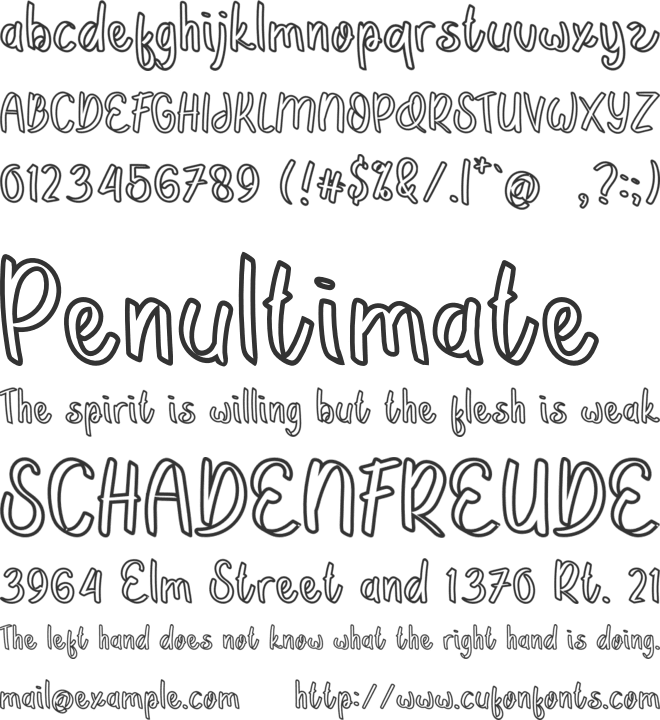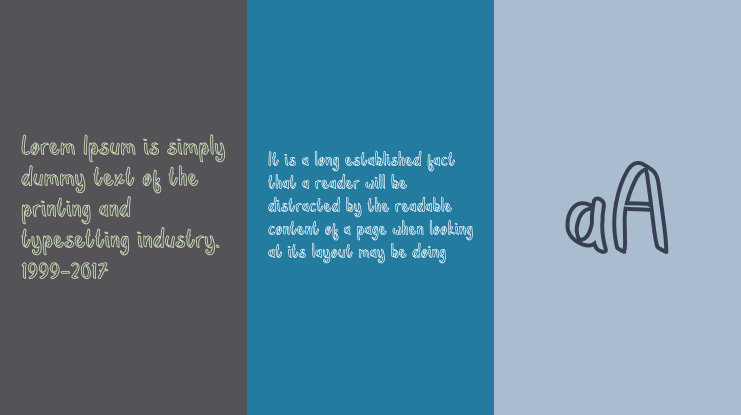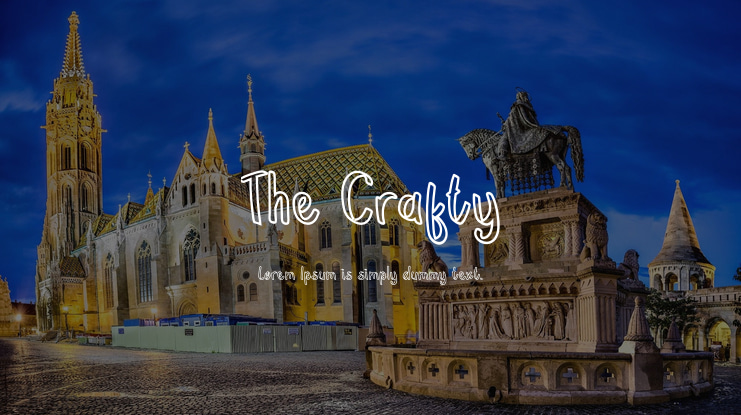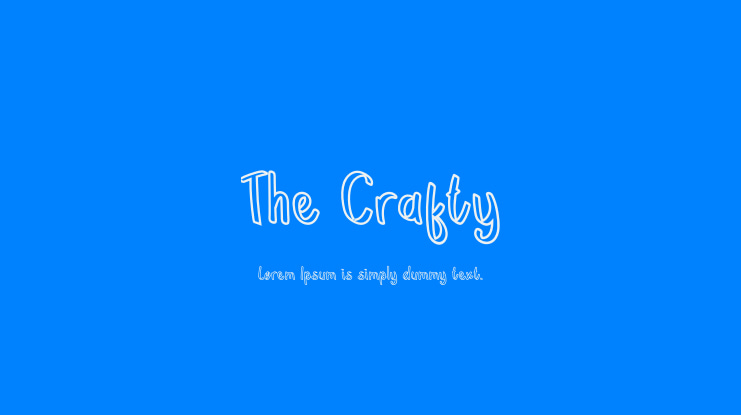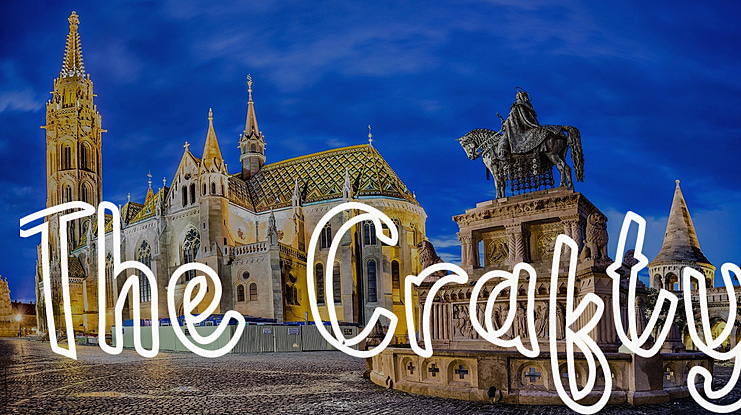
The Crafty Font
This is a beautiful and romantic handwritten font. Lovely and elegant, this font will brighten up each of your dear creations!
The outer lettering in the latest style is perfect for wall displays, wedding invitations, social media post logos,
advertisement, product packaging, product design, label, photography, watermark, invitation, writing tool, greeting card,
and other designs that require a handwritten touch.